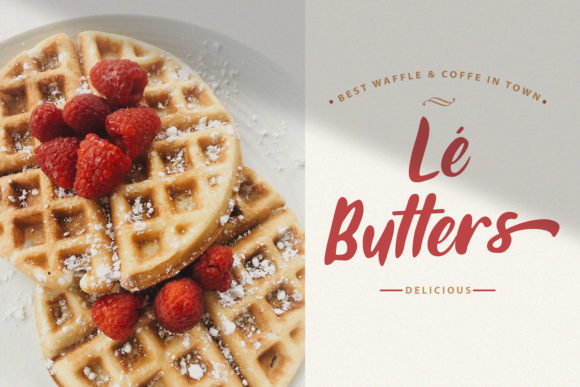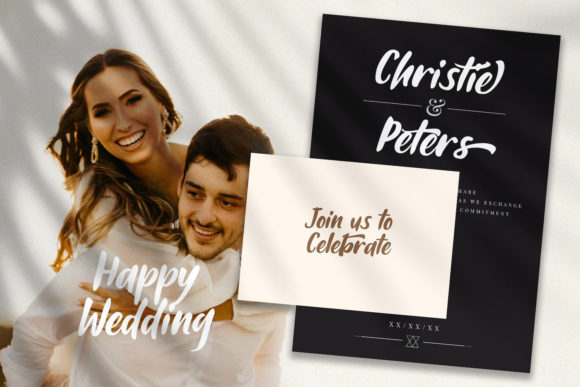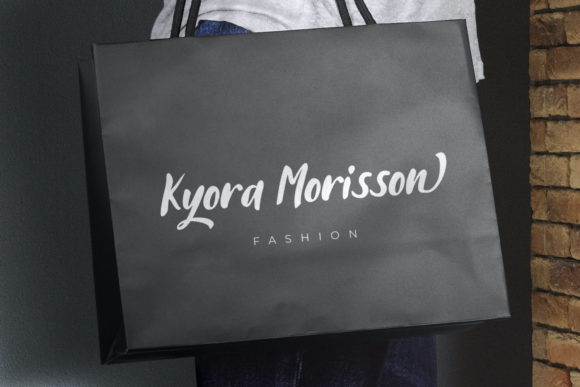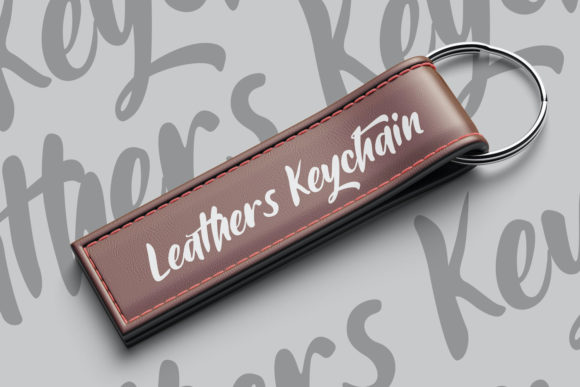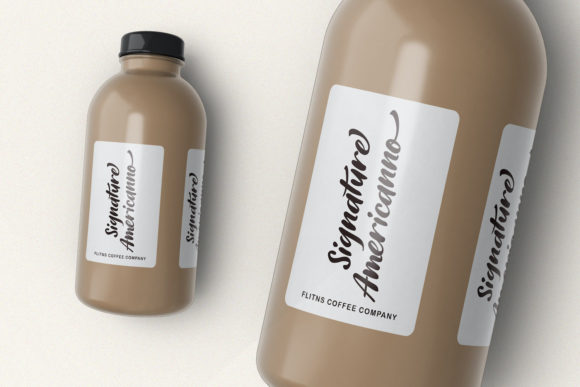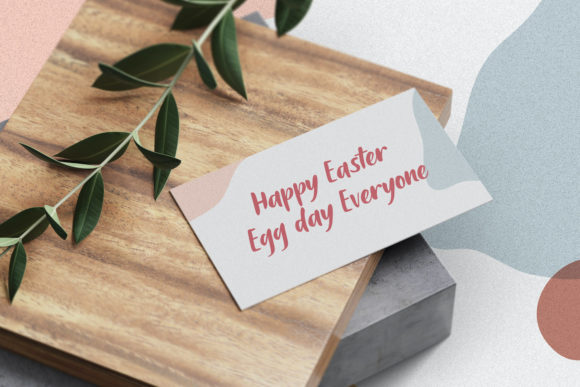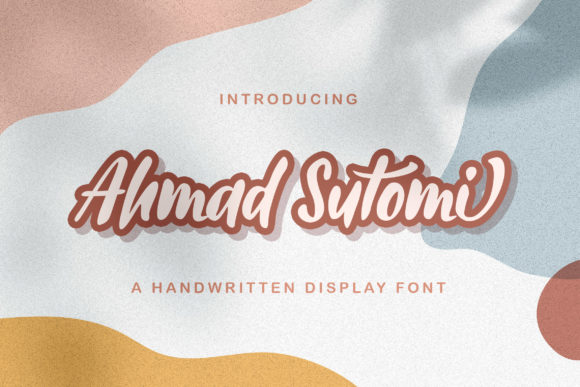
Ahmad Sutomi Font: Elevate Your Designs with Charming Script Elegance
In the vast universe of typography, certain fonts stand out for their unique ability to transform the aesthetic of any design project. Ahmad Sutomi is one such font that has been making waves in the design community. This lovely script font is not just a collection of characters; it’s an invitation to infuse your projects with a touch of elegance and playfulness. In this article, we’ll dive deep into the features of Ahmad Sutomi, exploring its characteristics, benefits, and how it can be a game-changer for designers and crafters alike.
The Charm of Ahmad Sutomi
Ahmad Sutomi is distinguished by its charming, playful characters that seem to dance along the baseline. This dynamic movement brings a sense of life and energy to any text, making it perfect for projects that require a personal touch. Whether you’re working on wedding invitations, branding materials, or creative crafts, Ahmad Sutomi offers a unique charm that can elevate your designs from ordinary to extraordinary.
One of the standout features of Ahmad Sutomi is its PUA (Private Use Area) encoding. This means that accessing all glyphs and swashes is straightforward, giving designers the flexibility to experiment with various combinations and create truly unique pieces. The PUA encoding ensures that you can easily access and use the extended character set, making it simpler to add intricate details and personal touches to your designs.
Versatility in Design Projects
The versatility of Ahmad Sutomi is one of its most compelling advantages. This font can be seamlessly integrated into a wide range of design projects. Here are a few ways you can use Ahmad Sutomi to enhance your work:
- Wedding and Event Stationery: Add a touch of elegance and romance to wedding invitations, save-the-date cards, and other event-related materials.
- Branding and Packaging: Use Ahmad Sutomi to create distinctive brand identities that stand out in a crowded market.
- Digital and Print Media: Enhance blog posts, social media graphics, and print materials with a dash of personality and charm.
- Crafts and DIY Projects: Perfect for crafters, this font can add a professional touch to handmade products, such as personalized gifts and decorations.
Why Choose Ahmad Sutomi?
With so many fonts available, why should Ahmad Sutomi be on your radar? Here are a few reasons:
- Unique Aesthetic: Ahmad Sutomi offers a distinctive look that can set your designs apart.
- Ease of Use: Thanks to PUA encoding, using the font and accessing its features is hassle-free.
- Versatility: Suitable for a wide range of projects, from professional designs to personal crafts.
- Playful yet Elegant: Strikes the perfect balance between charm and sophistication.
How to Make the Most of Ahmad Sutomi
To truly leverage the potential of Ahmad Sutomi, consider the following tips:
- Experiment with Sizes and Colors: Play around with different sizes and color schemes to find the perfect combination for your project.
- Mix and Match: Don’t be afraid to combine Ahmad Sutomi with other fonts for a unique contrast.
- Utilize Swashes and Glyphs: Take full advantage of the PUA encoding to add intricate details and swashes to your text.
Ahmad Sutomi is more than just a font; it’s a design element that can transform your projects with its charming and playful aesthetic. Its PUA encoding, versatility, and unique characteristics make it an invaluable asset for designers and crafters looking to add a touch of elegance and personality to their work. Whether you’re creating professional designs or personal crafts, Ahmad Sutomi invites you to explore new creative horizons. So, why wait? Add Ahmad Sutomi to your design toolkit today and watch your ideas come to life in a whole new way.